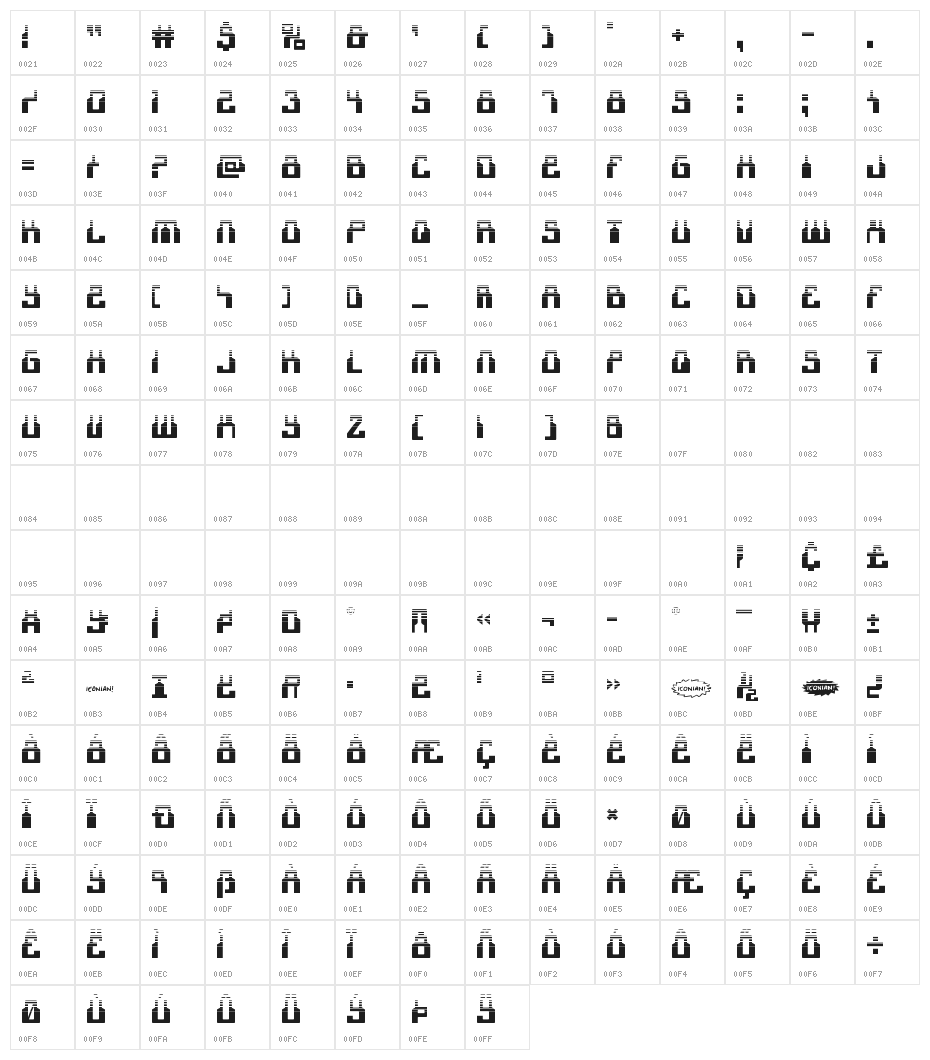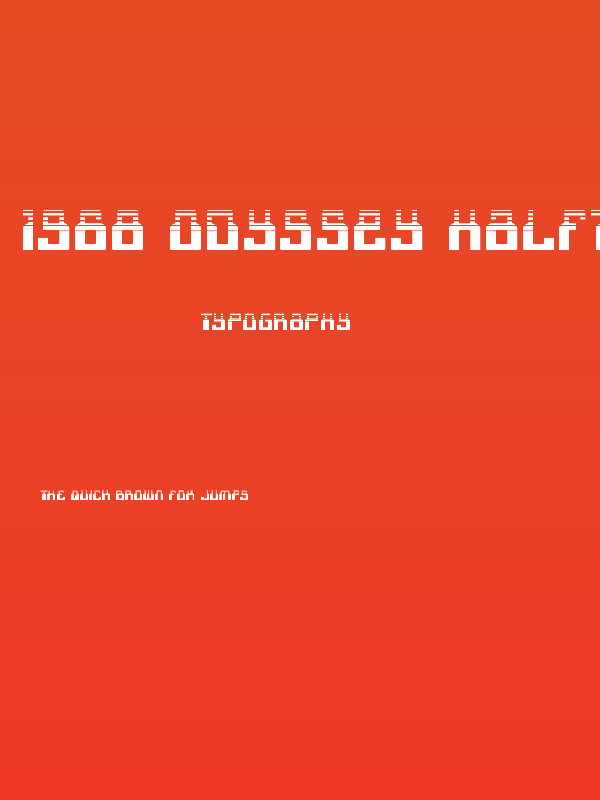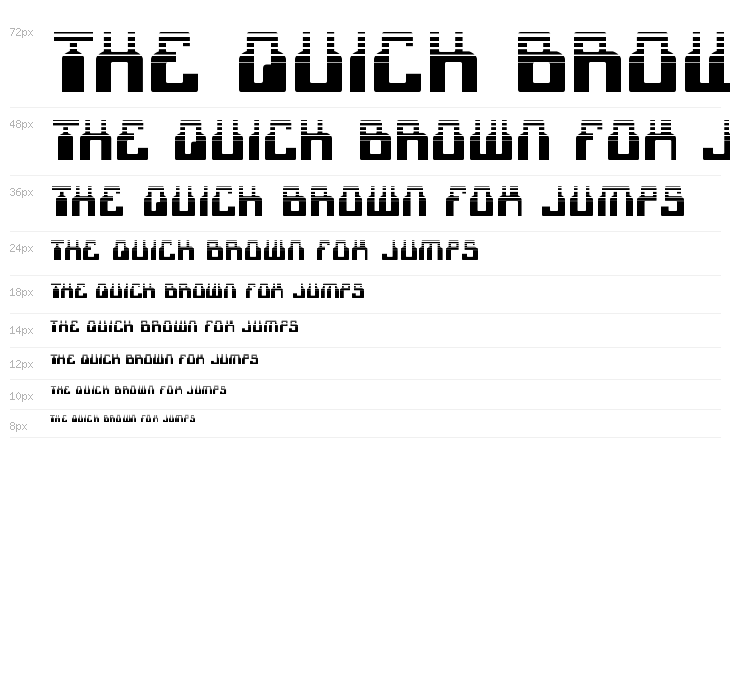
1968 Odyssey Halftone Font
1968 Odyssey Halftone Description
This font features a bold, futuristic design with a halftone effect that gives it a unique, digital appearance. The characters are constructed with a series of horizontal lines that create a sense of movement and depth. The uppercase and lowercase letters share a consistent geometric structure, emphasizing a modern aesthetic. Numbers and special characters maintain the same stylistic approach, ensuring uniformity across all glyphs. The font's distinct style makes it ideal for projects that require a contemporary and tech-inspired look.